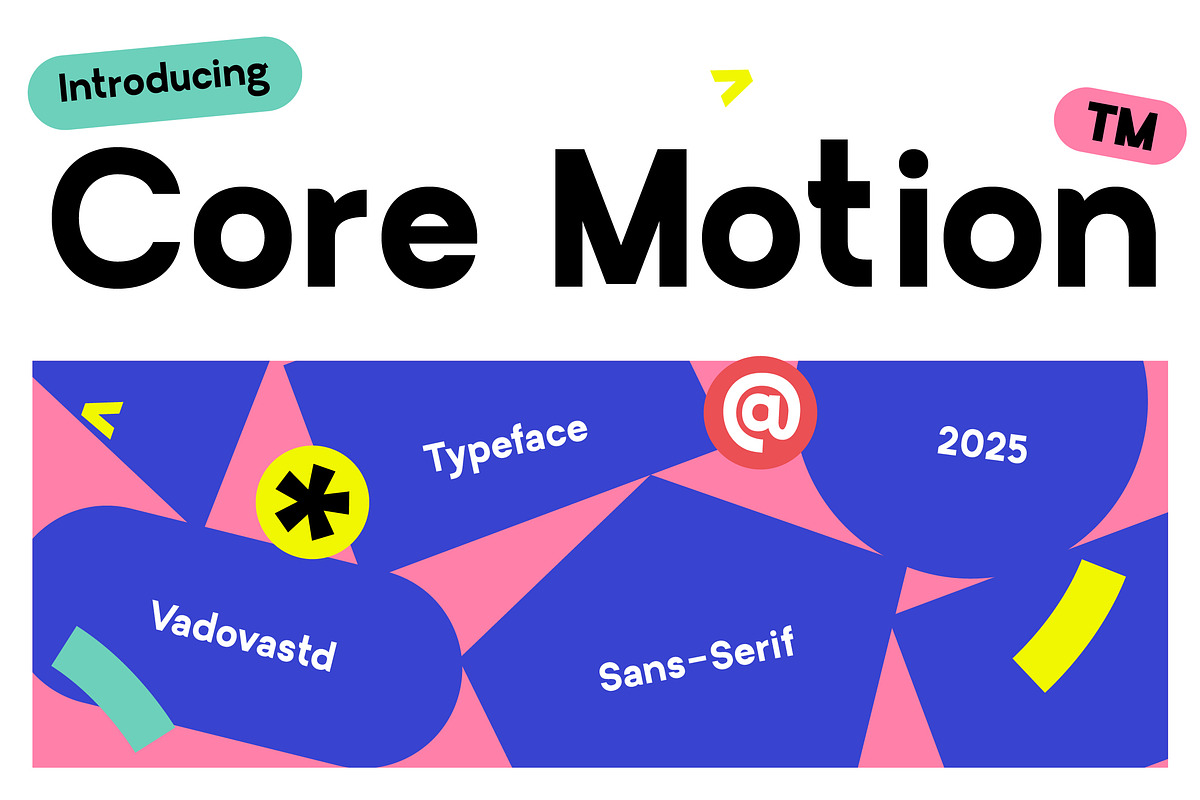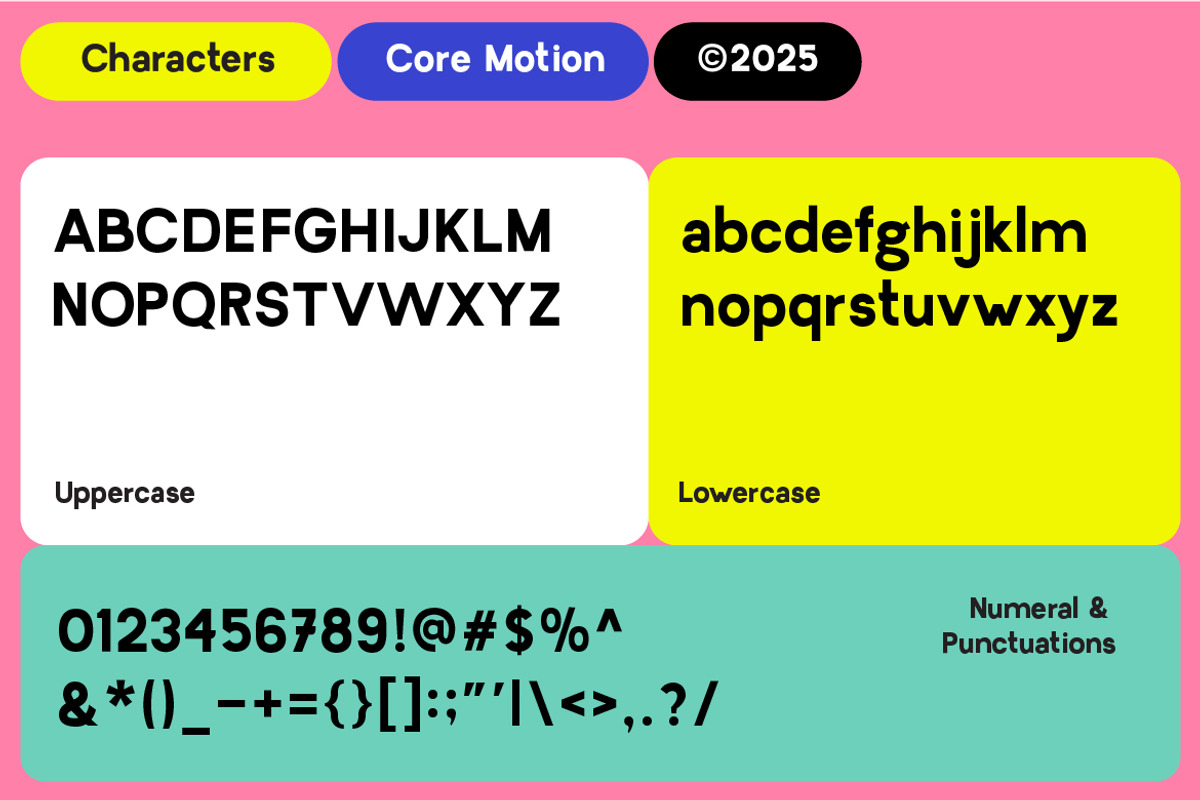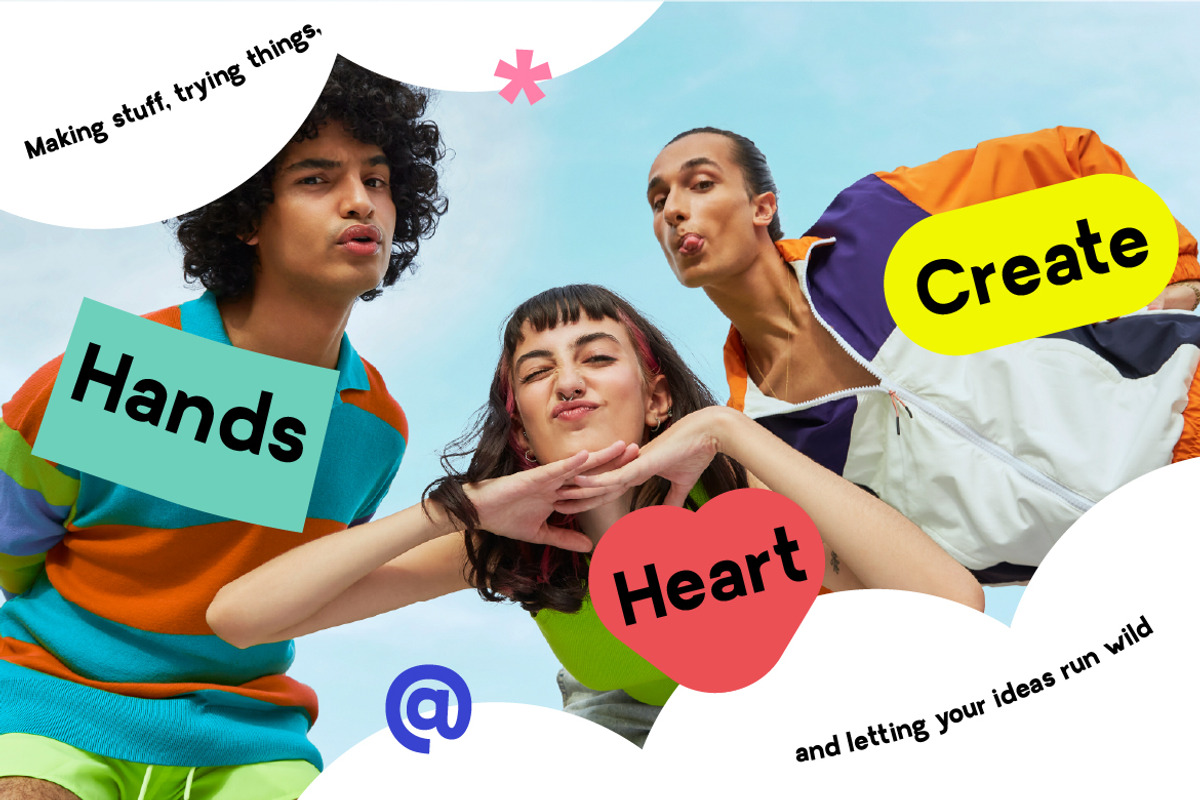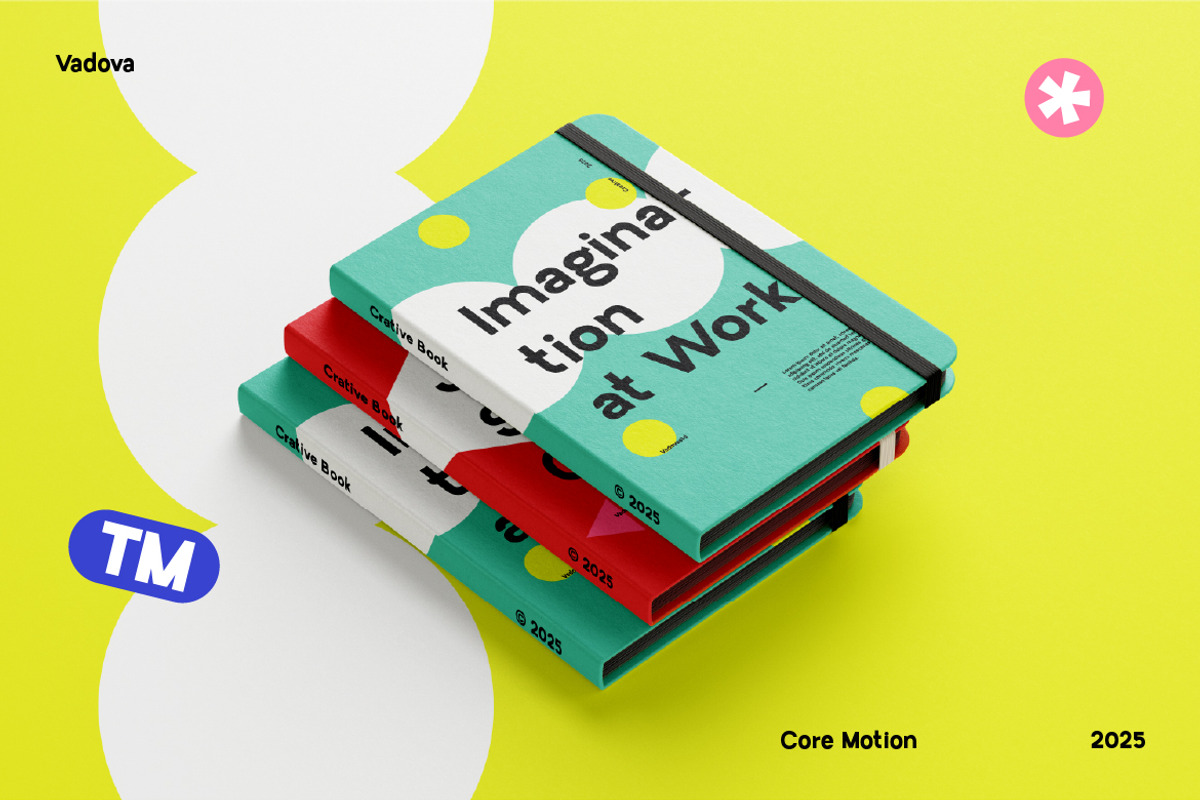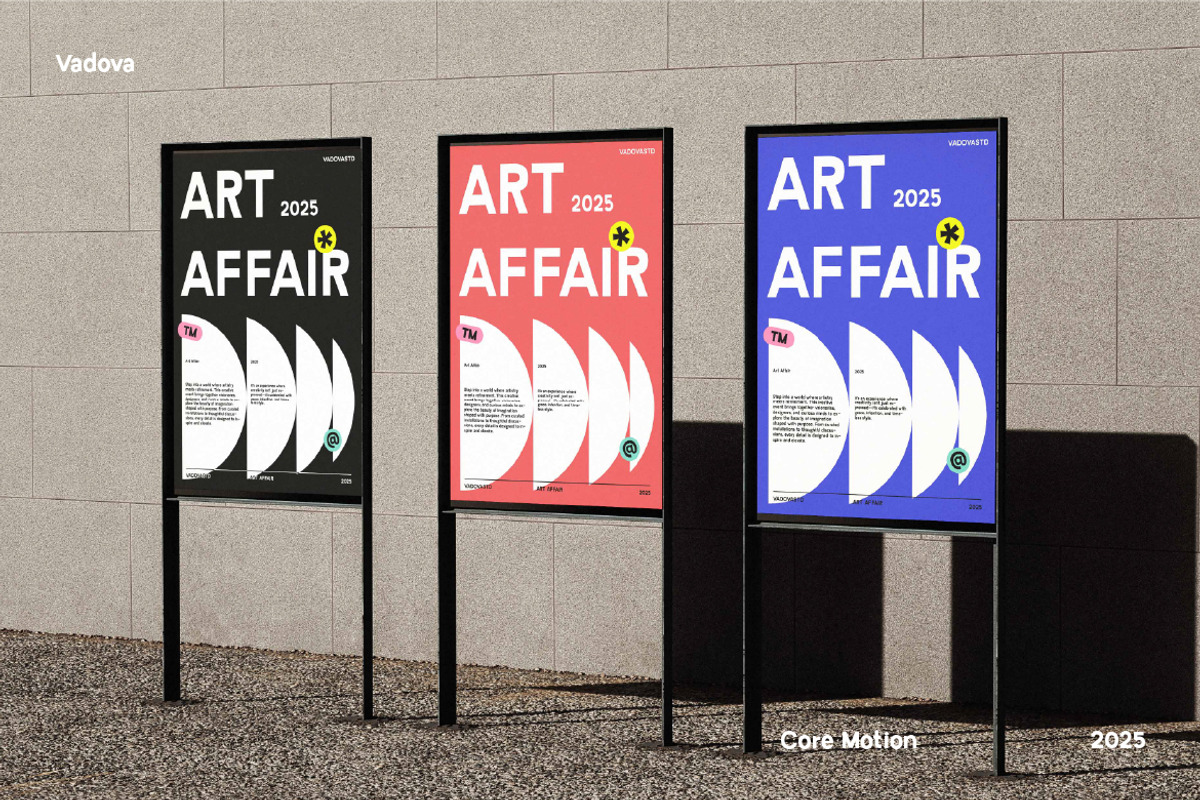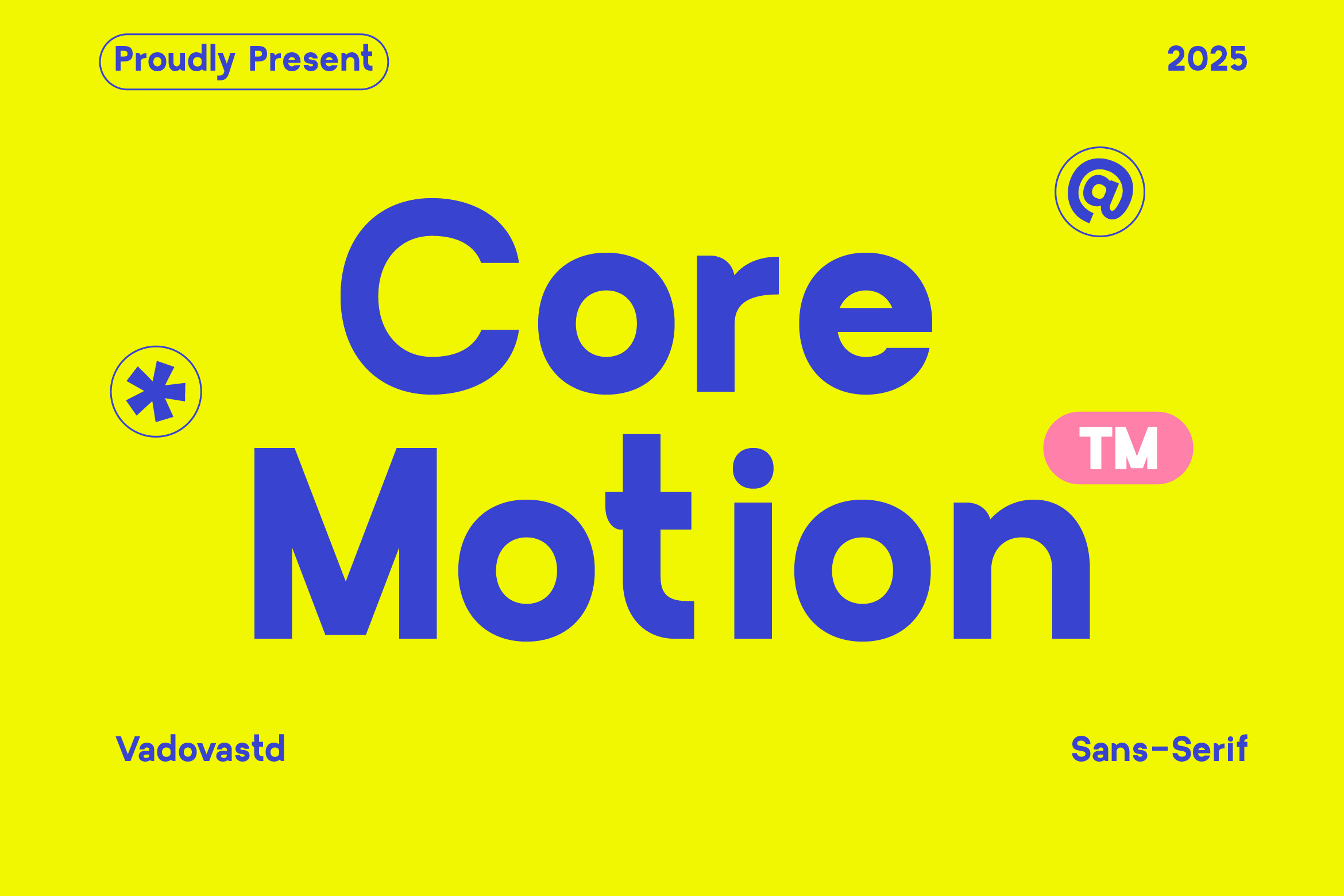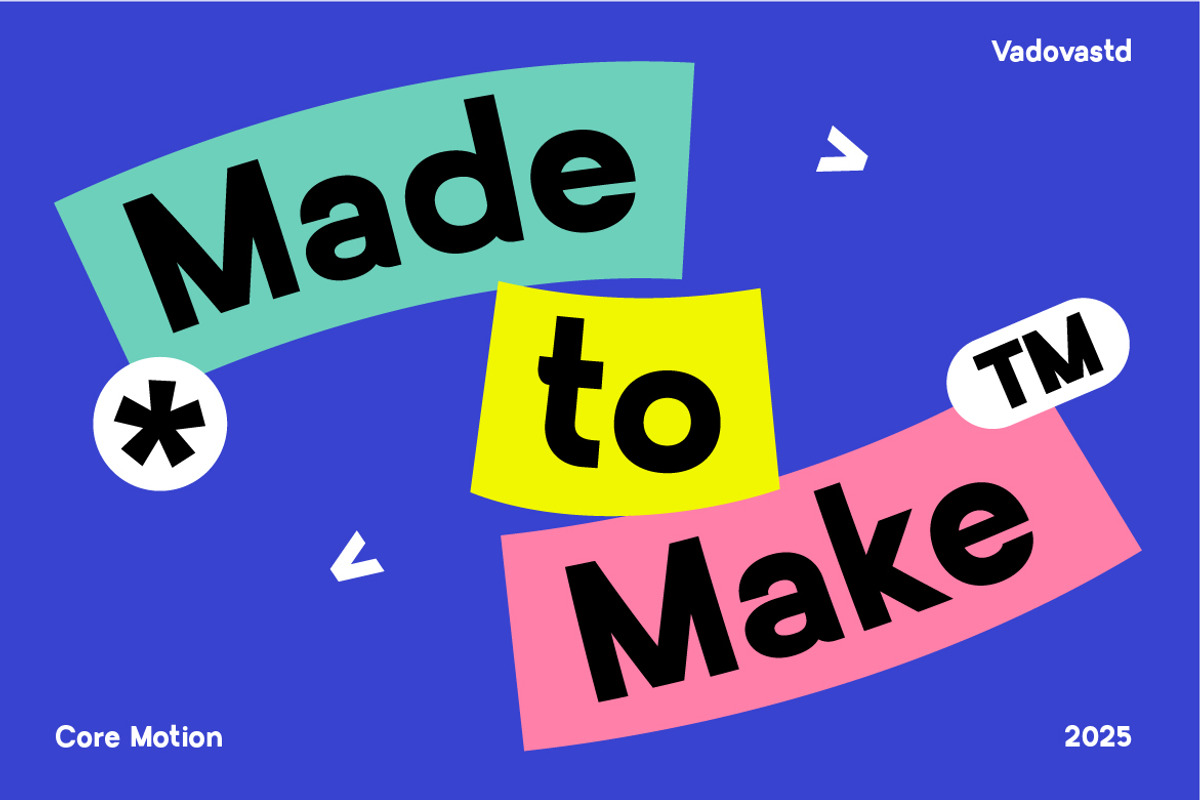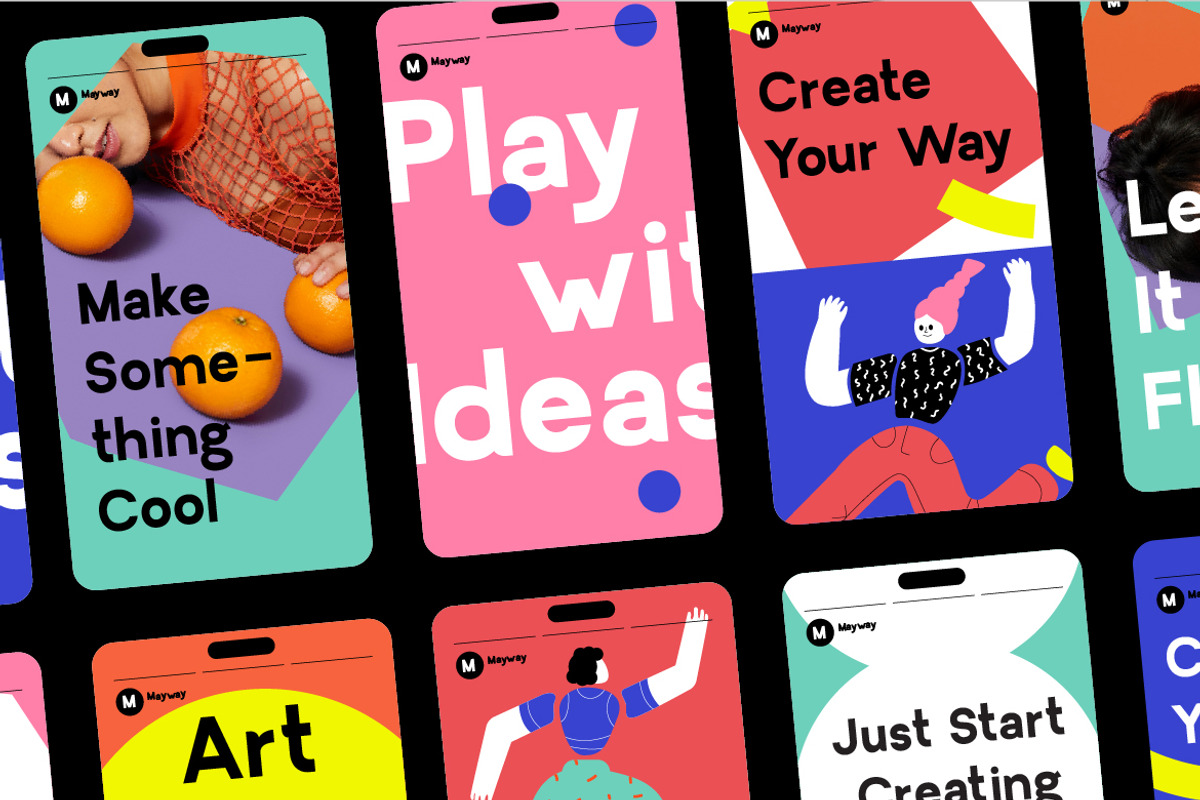
Core Motion Modern Sans Serif Font
Core Motion is a bold, friendly, and highly adaptable rounded sans serif typeface designed to bring personality and clarity to modern visual communication. Featuring smooth, rounded letterforms and generous spacing, this font delivers a confident yet approachable look that works beautifully across both digital and print formats. Core Motion includes a full character set with uppercase and lowercase alphabets, numerals, punctuation, and essential symbols offering flexible support for a wide range of languages and creative needs.
Crafted with contemporary simplicity in mind, Core Motion balances readability, strong presence, and visual warmth. Its clean geometry and soft curves make it ideal for display typography, powerful headlines, fun branding, dynamic posters, social media visuals, and engaging advertising layouts. Whether used in sleek app interfaces, content marketing assets, or striking promotional graphics, Core Motion elevates your message with gentle strength and visual charm.
- Clean geometric sans serif with a friendly, modern appearance
- Rounded terminals and smooth curves enhance approachability
- Balanced letterforms with even stroke weight for visual consistency
- Optimized spacing and open counters for readability at all sizes
- Ideal for bold headlines, UI design, and playful brand visuals
- Bold and colorful branding for youth-oriented or creative businesses
- UI/UX design for apps, games, and interactive digital products
- Posters, flyers, and event promos needing high visual impact
- Merchandise, packaging, and labels with a fun, friendly tone
- Social media graphics, quote posts, and campaigns with personality
Stand out in style, Core Motion adds punch to every project